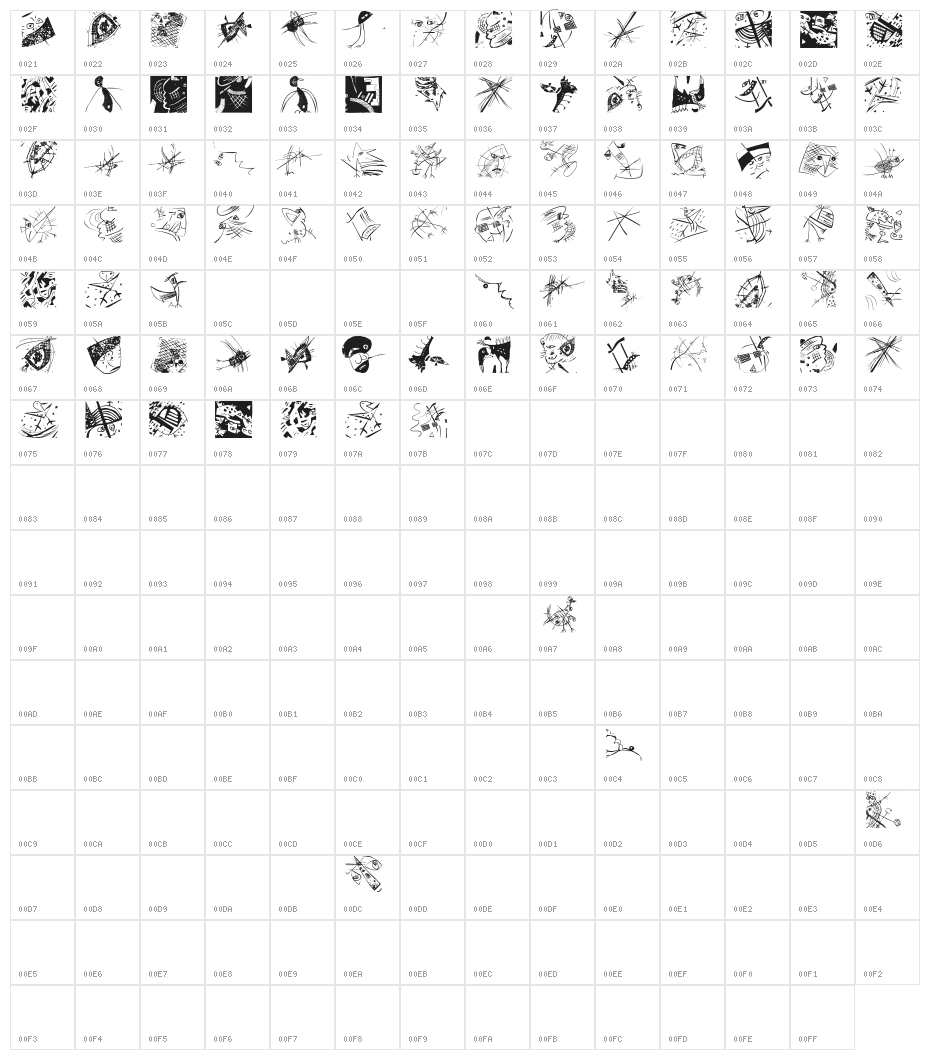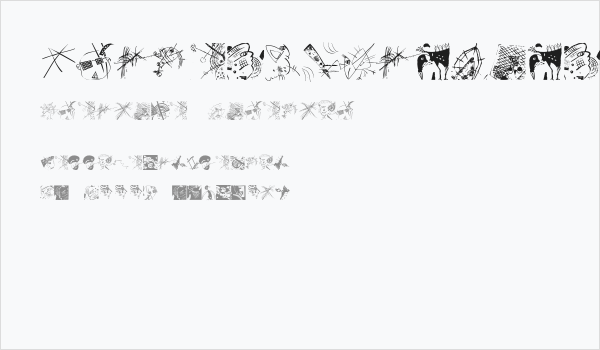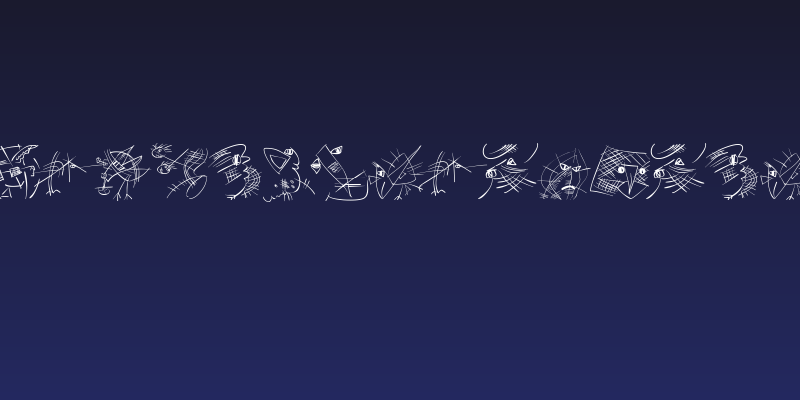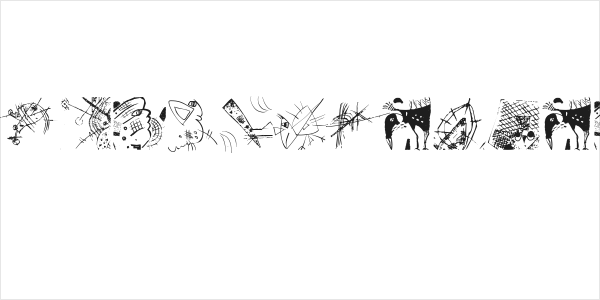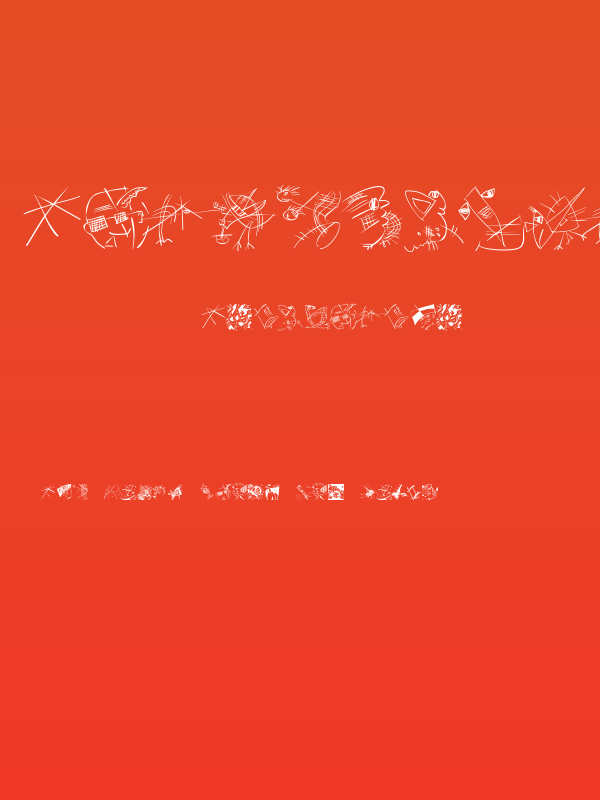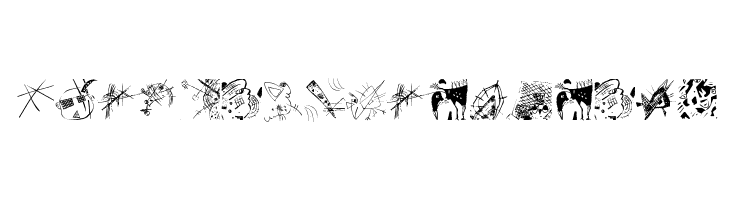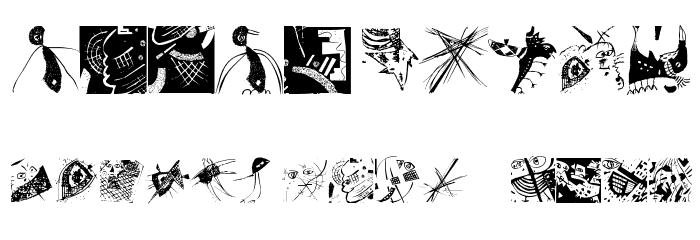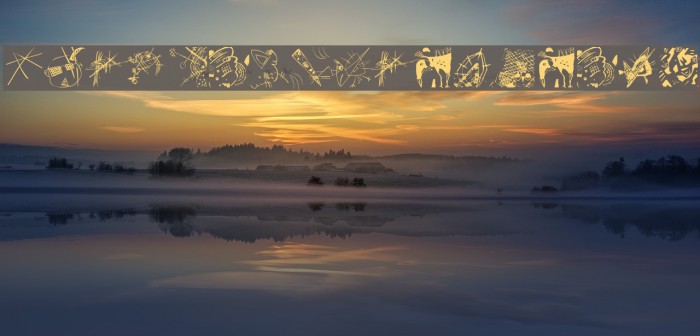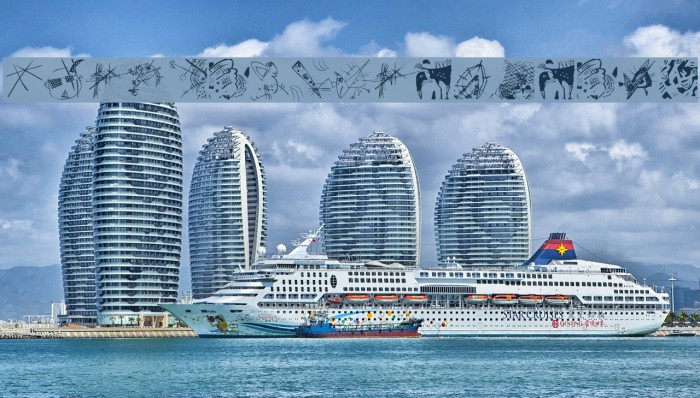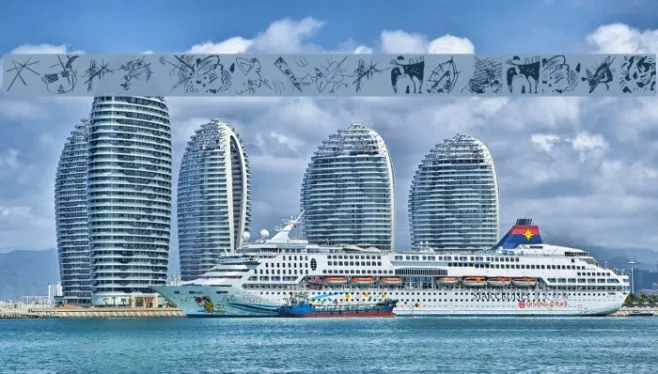
TracesOfKandinsky Font
TracesOfKandinsky Description
This font is a highly artistic and abstract representation, inspired by the works of Wassily Kandinsky. Each character is a unique composition of geometric shapes, lines, and patterns, creating a sense of movement and rhythm. The design is non-traditional, with each letter and symbol appearing as a miniature piece of abstract art. The characters do not follow conventional typographic rules, instead offering a playful and imaginative visual experience. This font is more of an artistic expression than a functional typeface, making it suitable for creative and avant-garde projects.
| Overall Style | Abstract, Artistic |
| Use Case | Artistic projects, Creative branding |
| Proposed Projects | Ideal for art exhibitions, creative branding, avant-garde posters, and projects seeking a unique visual identity. |